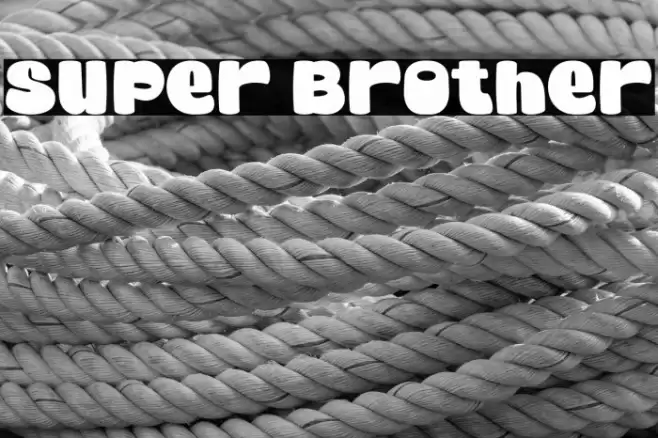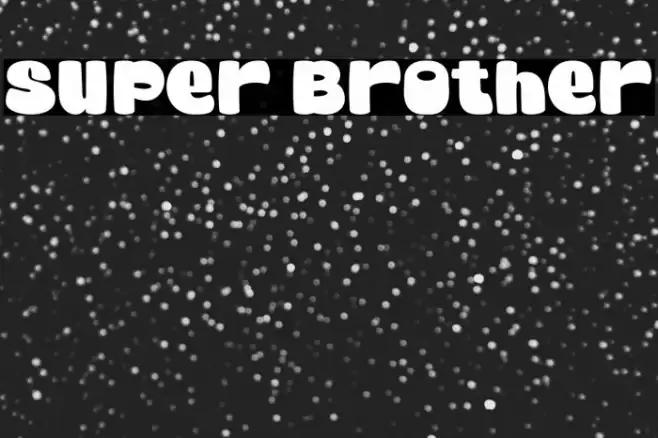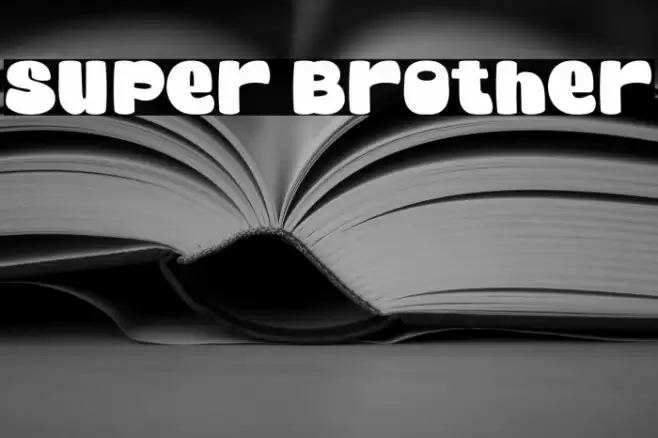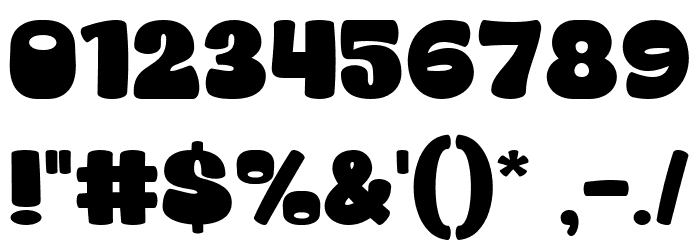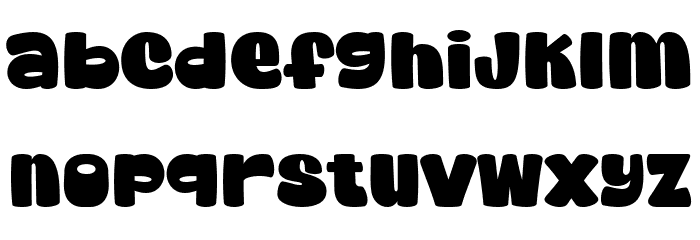
Super Brother Font
Super Brother Description
This font features a bold and playful style with thick, rounded characters that convey a sense of fun and approachability. The letters are uniformly wide, with a slightly condensed appearance, giving them a compact and cohesive look. The strokes are consistent in thickness, providing a low contrast that enhances readability while maintaining a whimsical aesthetic. The font includes a full set of uppercase and lowercase letters, numbers, and a variety of special characters, making it versatile for different design needs. Its unique style is reminiscent of retro or comic book fonts, adding a nostalgic yet modern touch to any project.
A bold, playful font with rounded characters and a retro vibe from Uncategorized fonts.
- Proposed Projects: Ideal for children's books, comic strips, playful branding, and retro-themed designs.
- Overall Style: Retro, Playful